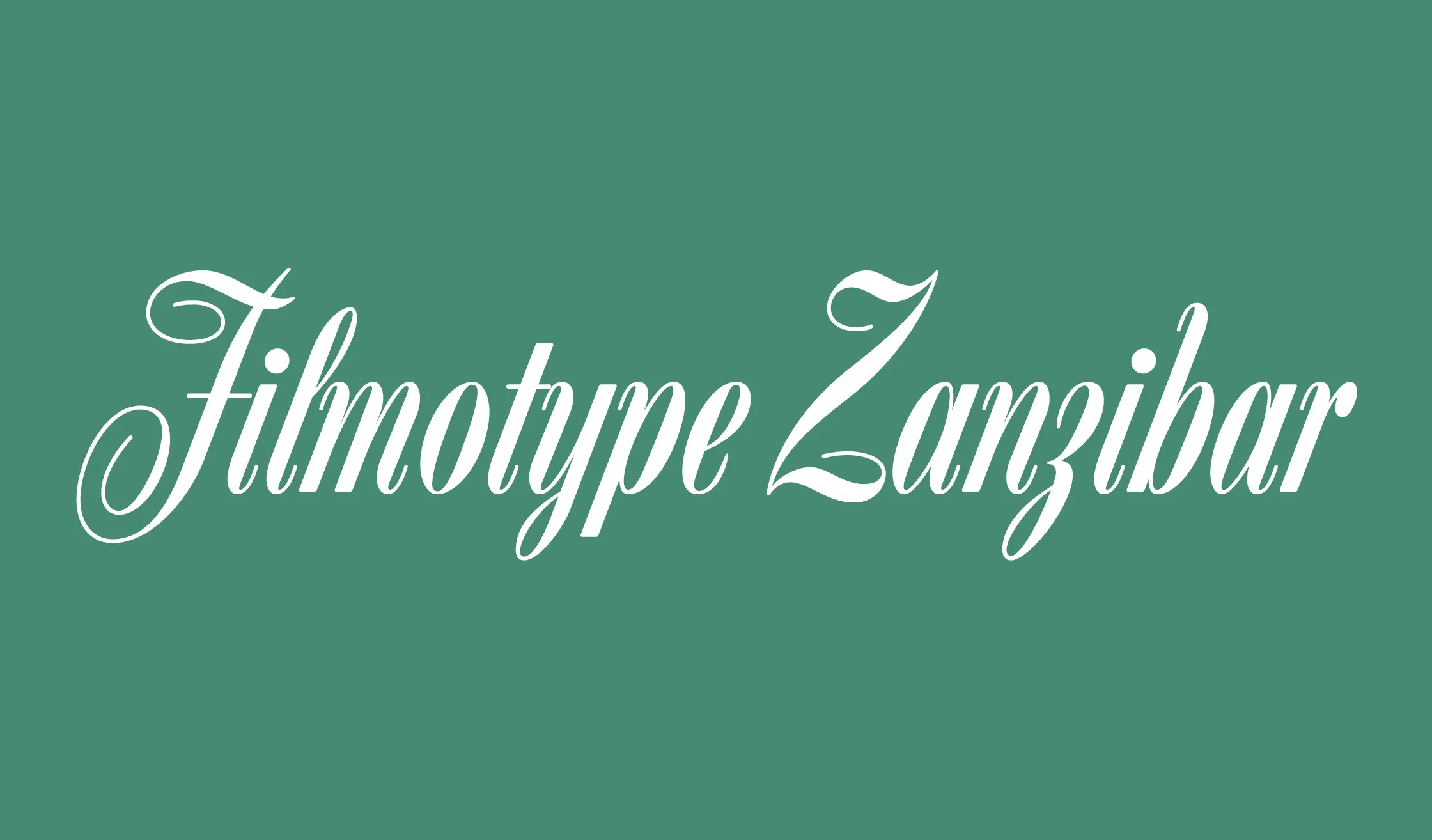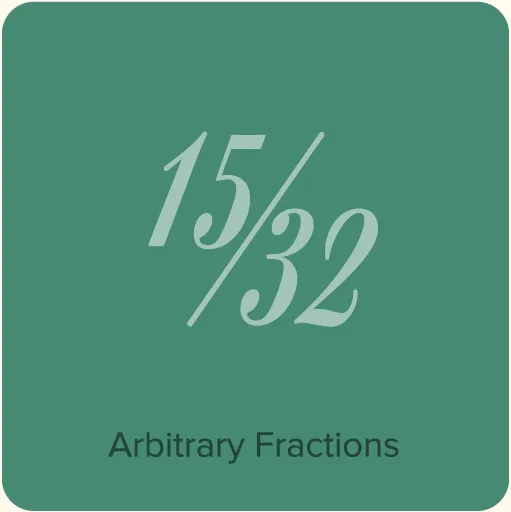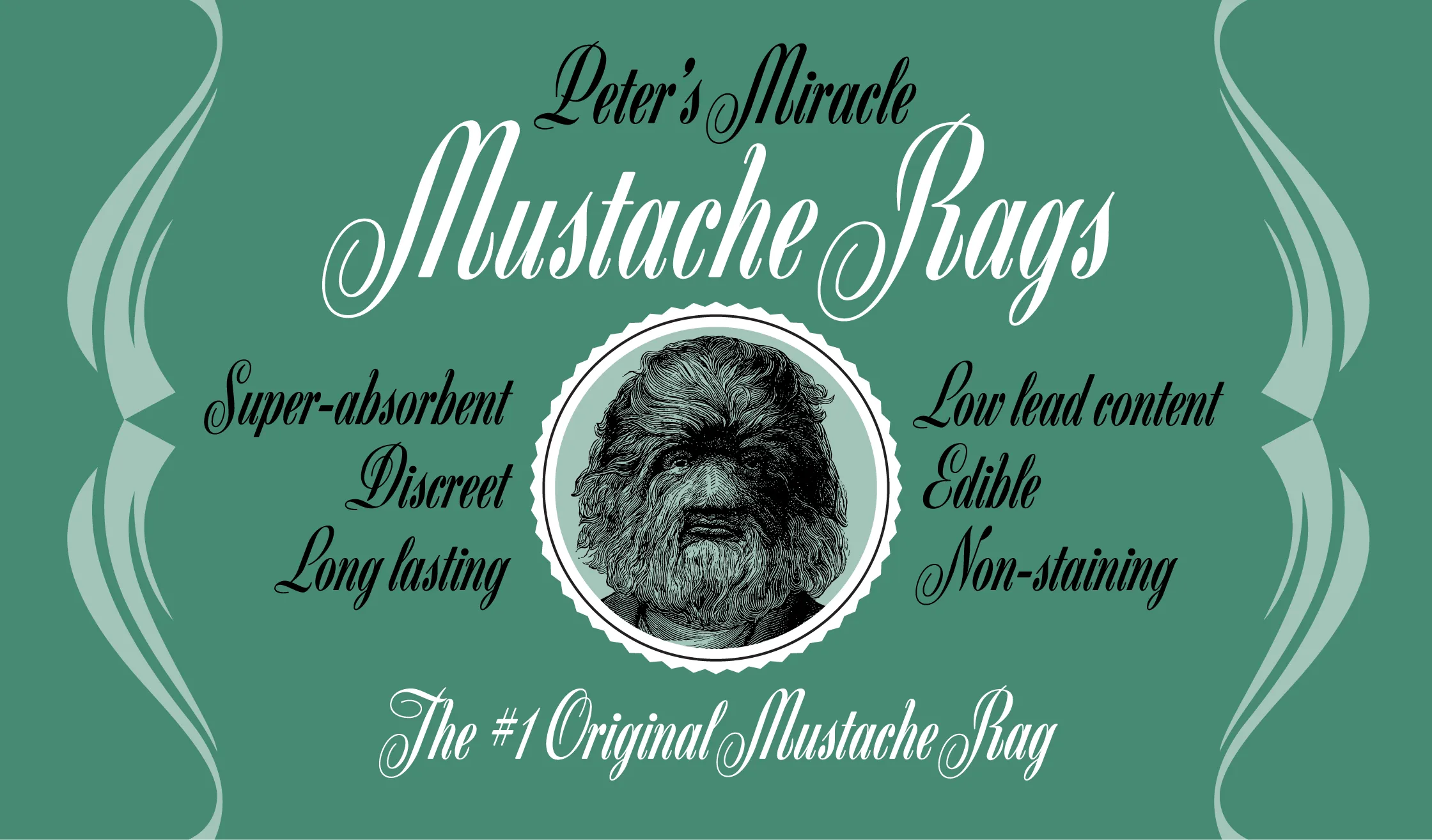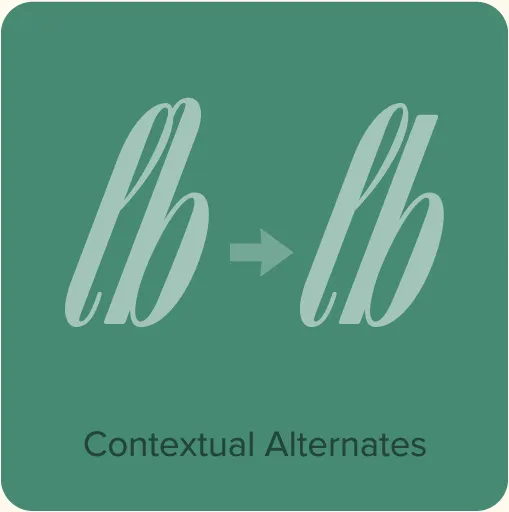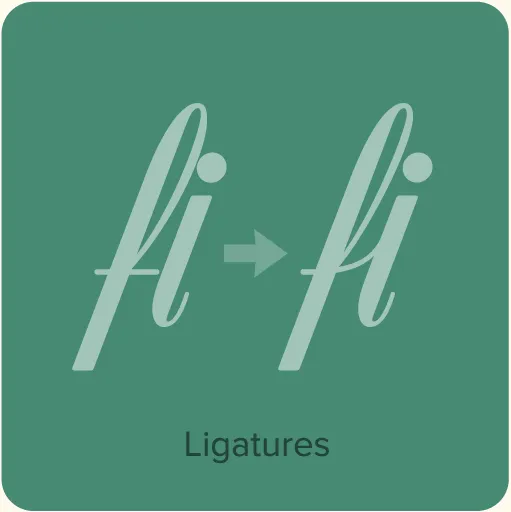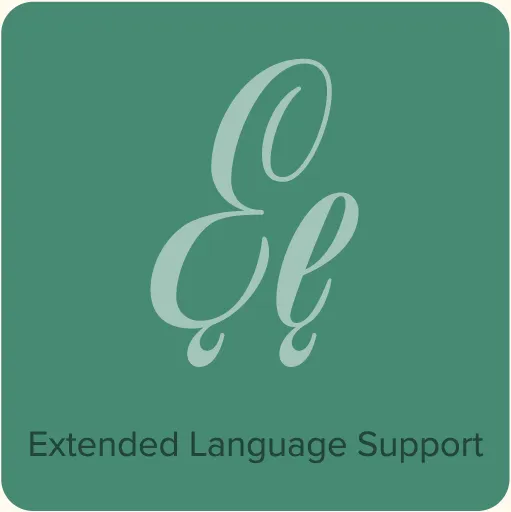
Filmotype Zanzibar (2008, for Filmotype) is a classic semi-script originally designed and released in the 1950s. As quirky as it is elegant, it combines outlandishly ornate caps with a condensed, Bodoni-like italic lowercase. The overall impression is that of a script, but it’s really a highly stylized italic. The capitals are a riot of spirals and abrupt turns, seemingly inspired by musical notation. I kept these characteristics in mind as I expanded the character set beyond the basic set provided in the original film font.